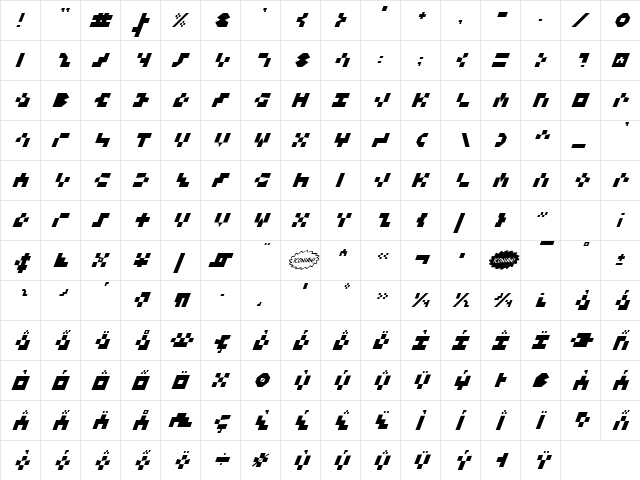
Keystone Italic Italic
Design Context for Keystone Italic Typeface
Keystone Italic is a composed and adaptable typeface that performs quietly and consistently across a wide range of design contexts. The dynamic lean of this cut emphasises speed and emphasis in any layout.
Pro Tip: Try Keystone Italic for annotation and caption copy alongside an upright companion — the contrast in angle creates a dynamic but ordered typographic system.